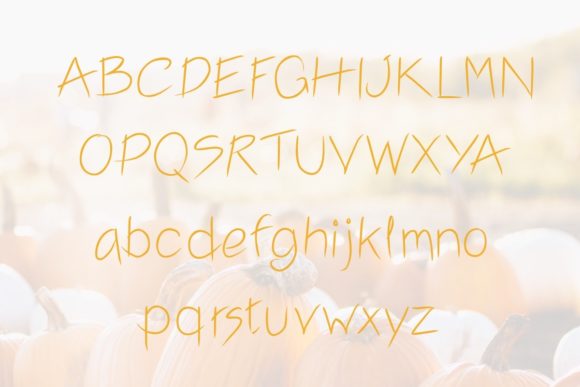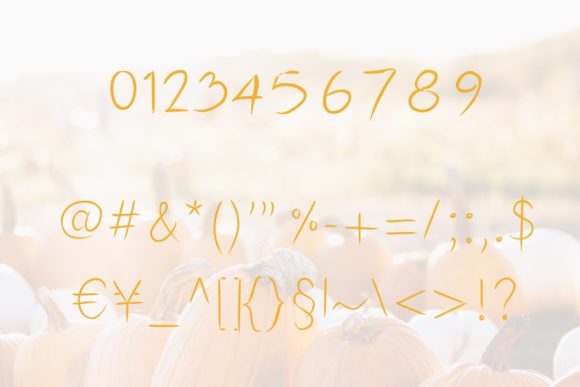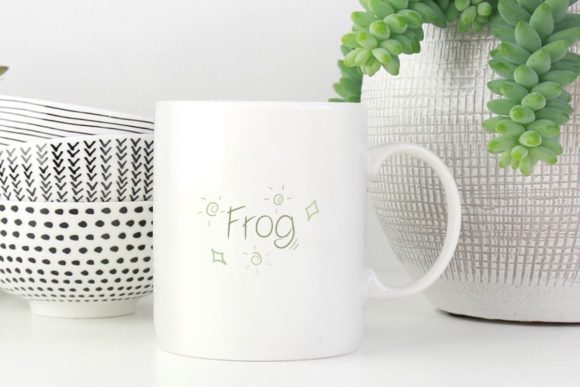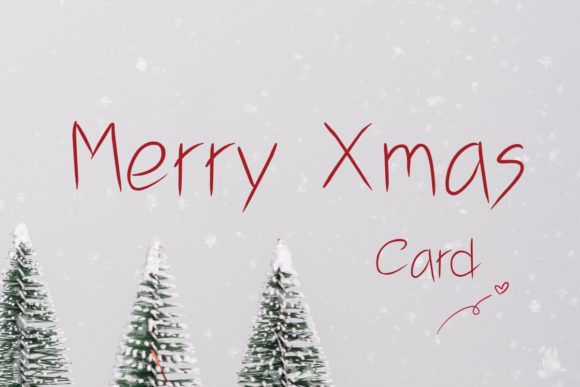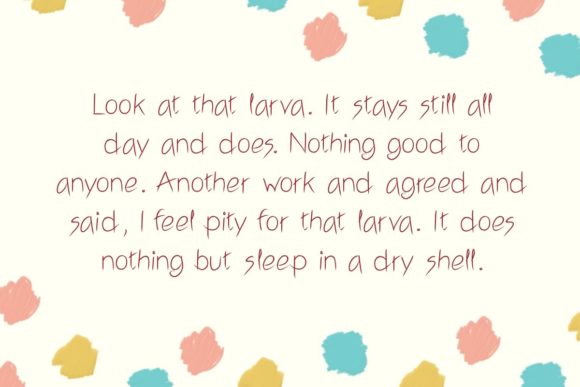
Happy Halloween Font: Add a Spooky Touch to Your Designs
Are you looking for a font that can add a personal and realistic feel to your designs, especially for Halloween-themed projects? Look no further than the Happy Halloween Font! This cute and simple lettered handwritten font is perfect for all your chalkboard quotes, teaching materials, and other creative endeavors.
What is Happy Halloween Font?
Happy Halloween Font is a carefully crafted, handwritten font that exudes a charming and authentic feel. Its unique lettering style is reminiscent of traditional chalkboard writing, making it an ideal choice for creating eye-catching and engaging designs. The font’s simplicity and cuteness make it perfect for a wide range of applications, from Halloween-themed party invitations to educational materials.
Key Features of Happy Halloween Font
- Cute and Simple Design: The Happy Halloween Font boasts a delightful and uncomplicated design that is sure to capture the attention of your audience.
- Handwritten Style: The font’s handwritten style gives it a personal and realistic feel, making it perfect for adding a touch of warmth to your designs.
- Chalkboard Look: The font’s authentic chalkboard look makes it an excellent choice for creating designs that resemble traditional chalkboard writing.
- Versatile: The Happy Halloween Font is versatile and can be used for a wide range of applications, including party invitations, teaching materials, and more.
Uses of Happy Halloween Font
The Happy Halloween Font is perfect for designers and crafters who want to add a spooky touch to their creations. Here are some ideas for using this font:
- Halloween Party Invitations: Create spooky and inviting party invitations that will set the tone for your Halloween celebration.
- Teaching Materials: Use the Happy Halloween Font to create engaging and educational materials for your students, such as worksheets, posters, and presentations.
- Chalkboard-Style Signs: Create eye-catching chalkboard-style signs for your business, event, or party.
- Crafting Projects: Add a personal touch to your crafting projects, such as handmade cards, gift tags, and scrapbook pages.
Tips for Using Happy Halloween Font
Here are some tips for getting the most out of the Happy Halloween Font:
- Experiment with Colors: Try pairing the font with different colors to create a unique and eye-catching design.
- Mix and Match Fonts: Combine the Happy Halloween Font with other fonts to create a visually appealing design.
- Add Graphics and Images: Enhance your design by adding graphics and images that complement the font.
The Happy Halloween Font is a versatile and charming font that is perfect for designers and crafters who want to add a spooky touch to their creations. Its authentic look and feel make it an excellent choice for a wide range of applications, from Halloween-themed party invitations to educational materials. With its cute and simple design, handwritten style, and chalkboard look, this font is sure to become a favorite in your design arsenal.